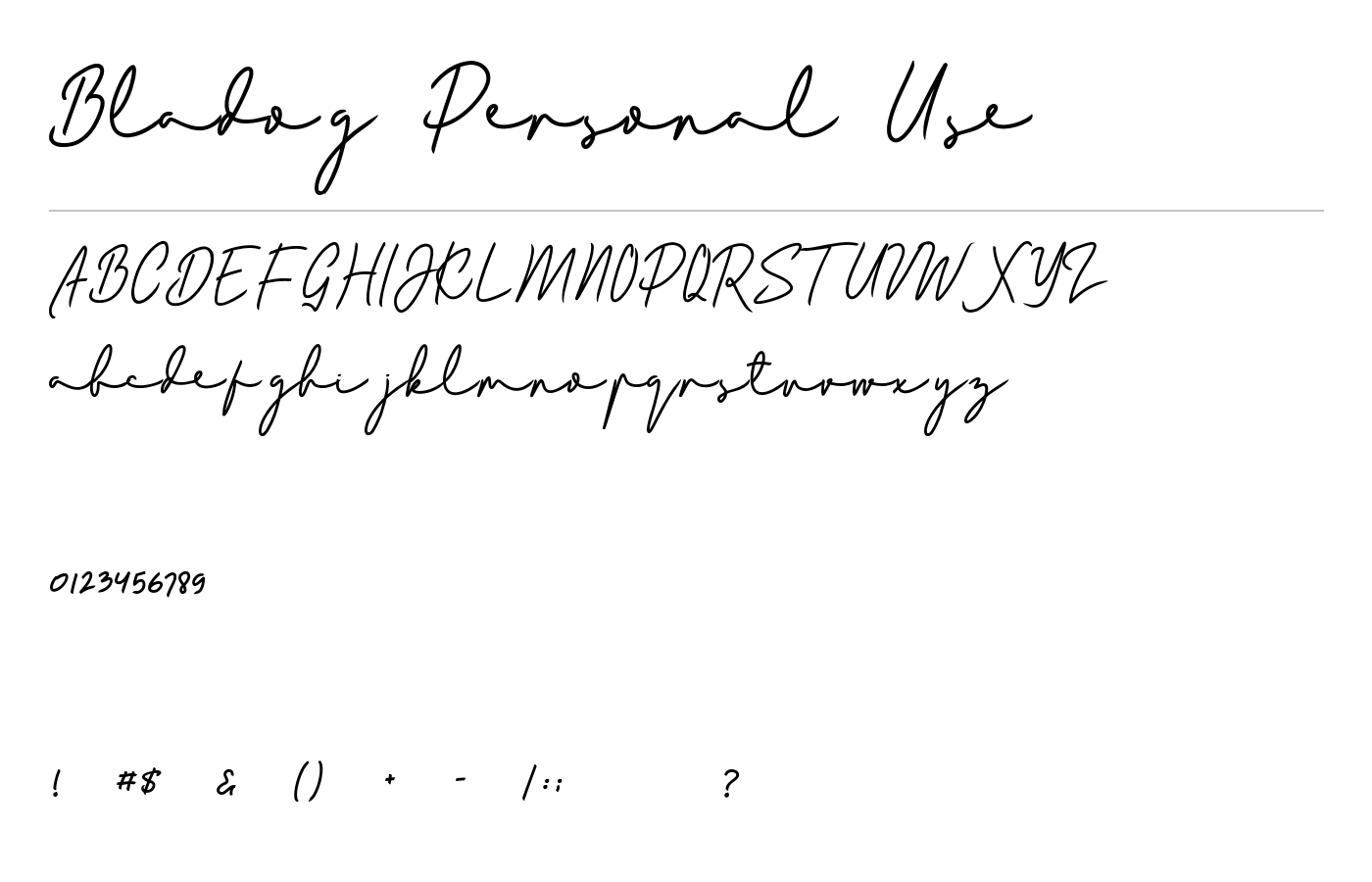
Bladog Personal Use Font is a delicate, handwritten script font with a light, airy feel and smooth, flowing strokes that give it an elegant yet casual personality. Its tall, slender letterforms and subtle irregularities make it ideal for creative branding, invitations, and personal projects where a warm, approachable touch is desired. This font works best in headlines or short text where its charming style can shine.
Bladog Personal Use Font
About Bladog Personal Use Font
| Font family | Bladog Personal Use Font |
| Designer | Vaca Tama |